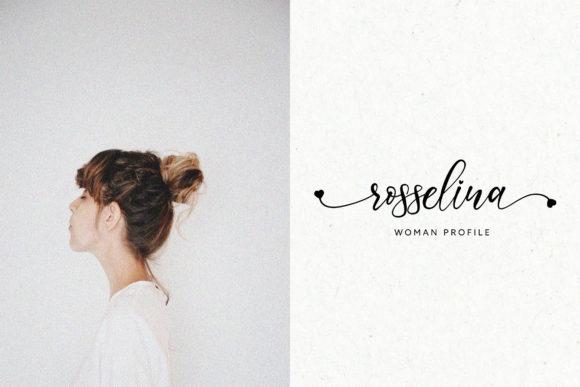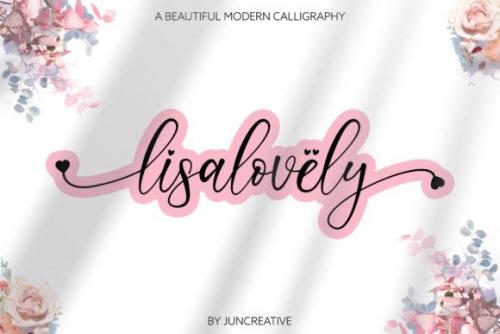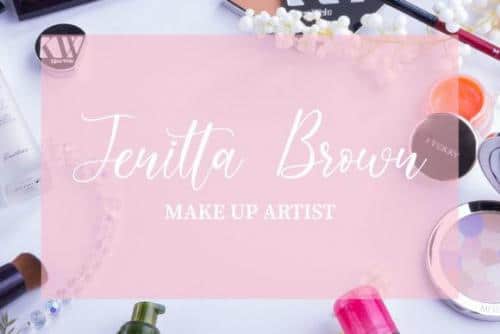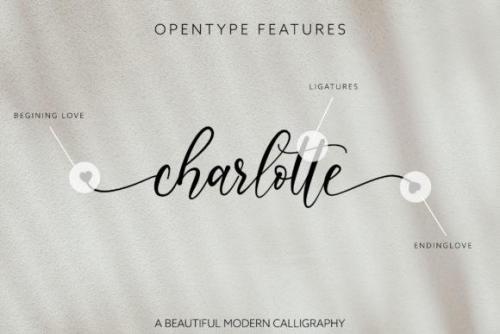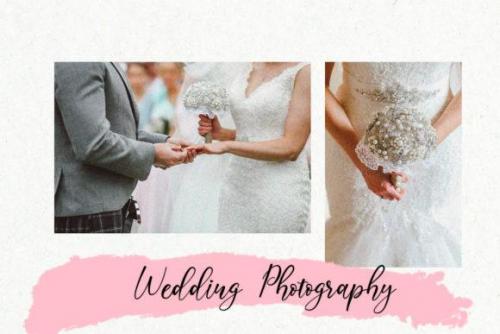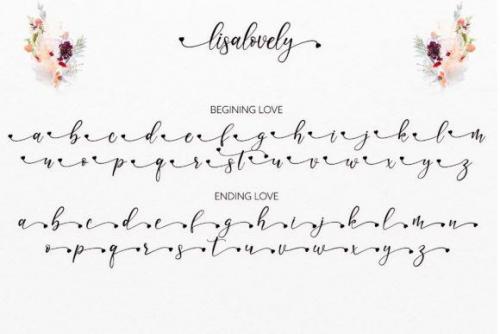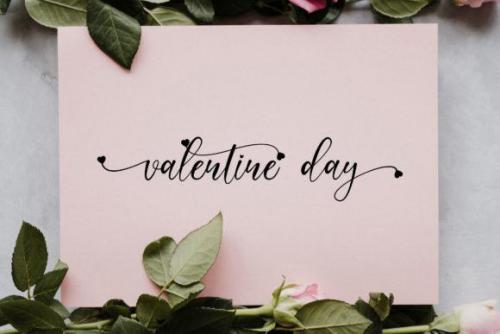
Lisalovely Font it is a Calligraphy chick font with exquisite accents. It is perfect for branding, wedding invitations and invitation cards and many more
Font includes a full set of gorgeous uppercase and lowercase letters, numbers, a large selection of punctuation marks, ligatures & set of cute swashes.
- Designer: Juncreative